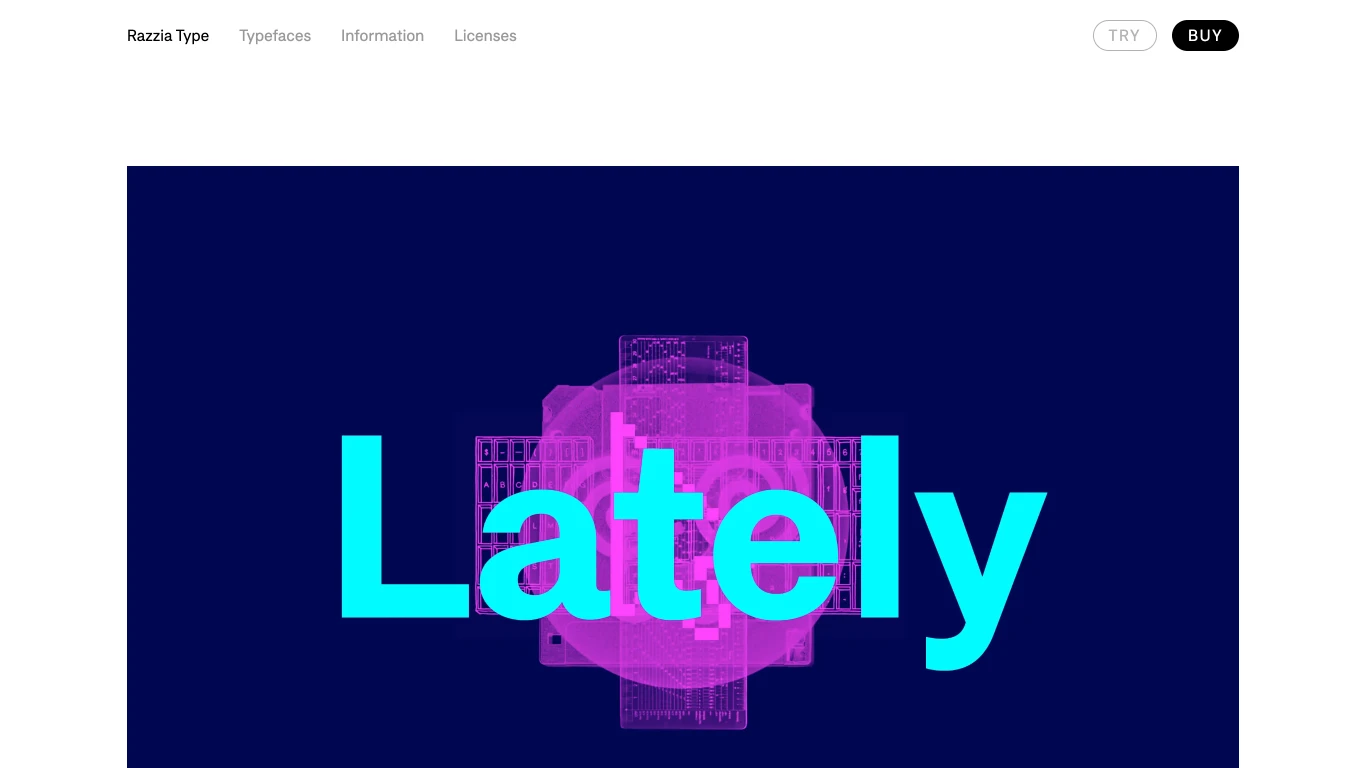
Razzia Type
Switzerland
2016
Razzia Type is a Zurich, Switzerland–based independent type foundry founded in 2016 by designer Mirco Schiavone. Known for its retail and custom releases, the studio has made a name with typefaces like RT Lately—a contemporary sans based on a century of gothic styles—and RT Dromo, a versatile grotesque inspired by 1980s concert ticket typography. While specific clients aren't named, Razzia Type offers bespoke type services alongside its retail catalogue. What makes the foundry unique is its archival-to-contemporary design philosophy: Schiavone captures "snapshots of letterforms transcending time and material," transforming historical inspirations into fresh, modern typefaces.